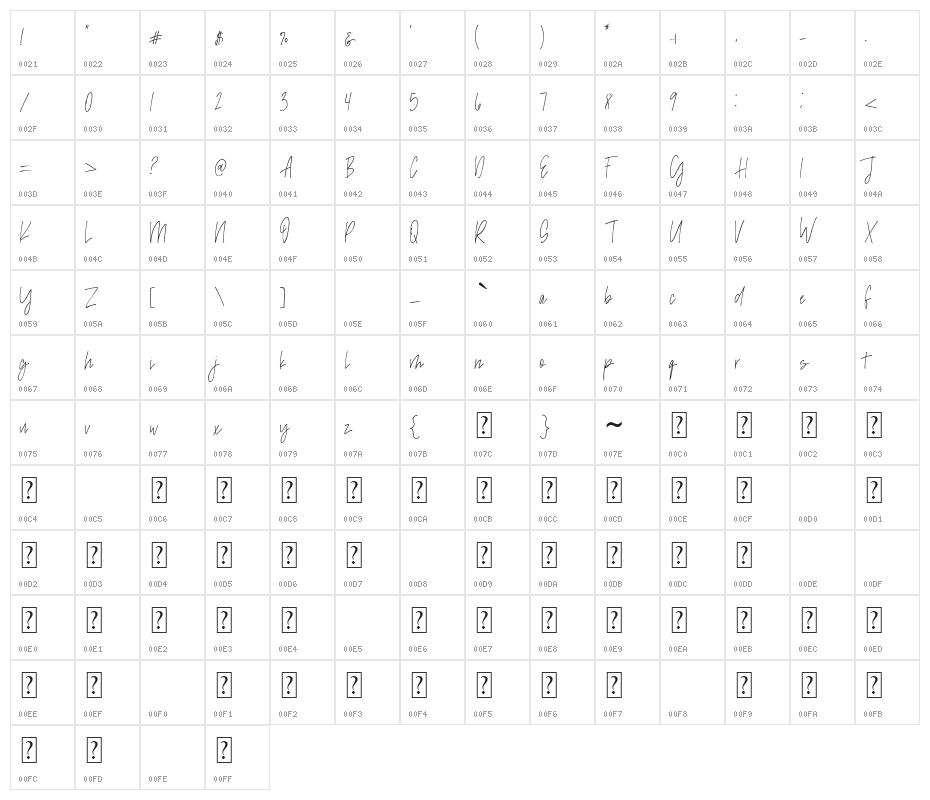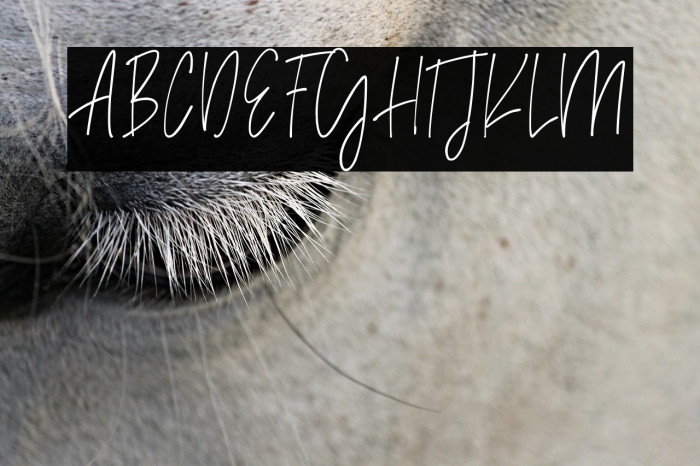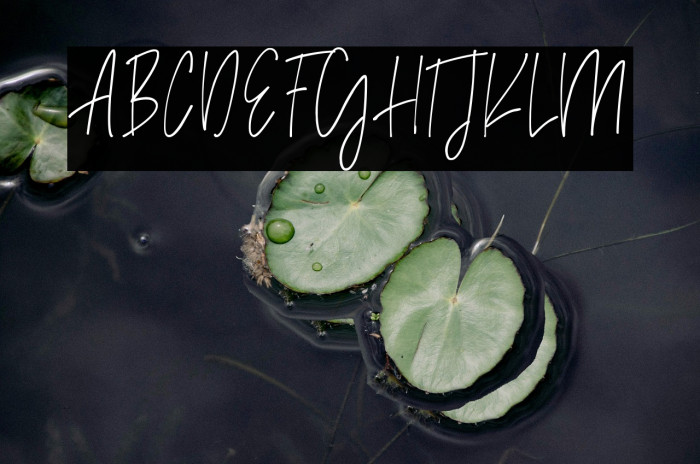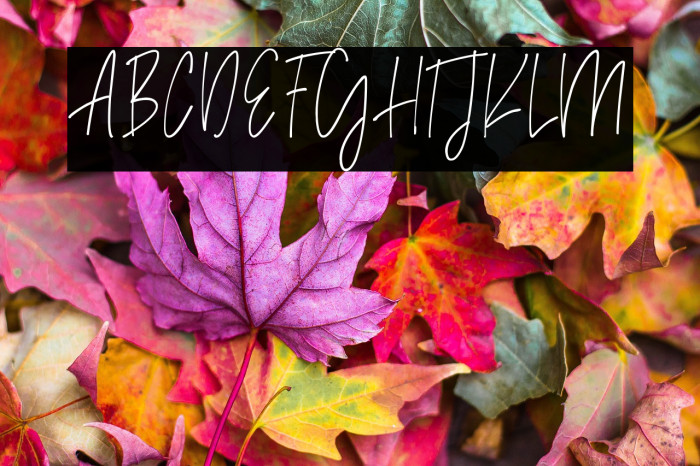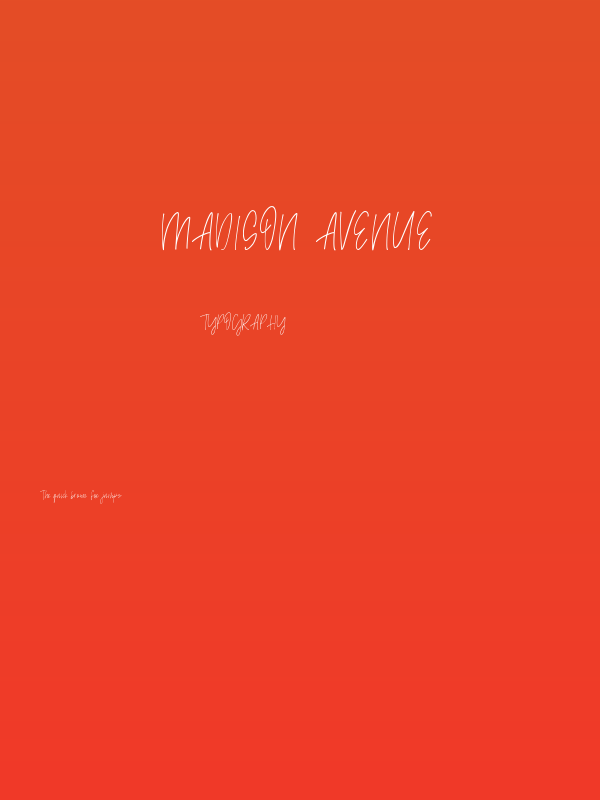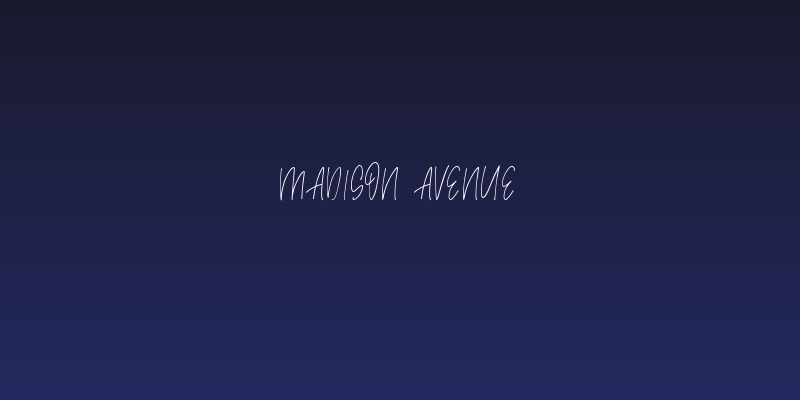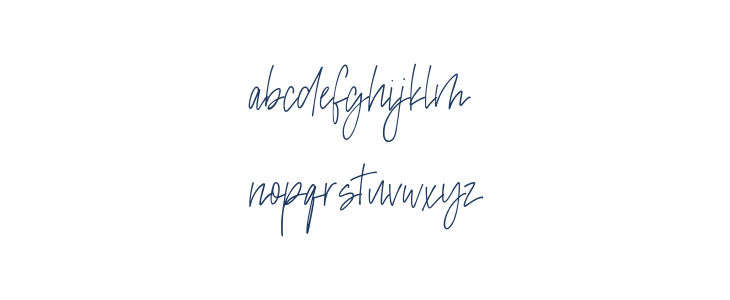
Madison Avenue Font
Madison Avenue Description
This font features a lively and dynamic handwritten style, characterized by its fluid and slightly irregular strokes. The uppercase letters are tall and slender, with a playful tilt that adds a sense of movement and energy. The lowercase letters maintain this fluidity, with a consistent baseline that ensures readability. Numbers and special characters are crafted with the same attention to detail, making them seamlessly integrate with the alphabetic characters. The overall appearance is casual yet sophisticated, making it suitable for a variety of creative projects.
| Use Case | Logos, Invitations, Social Media Graphics |
| Proposed Projects | Ideal for greeting cards, invitations, personal branding, and creative social media graphics. |